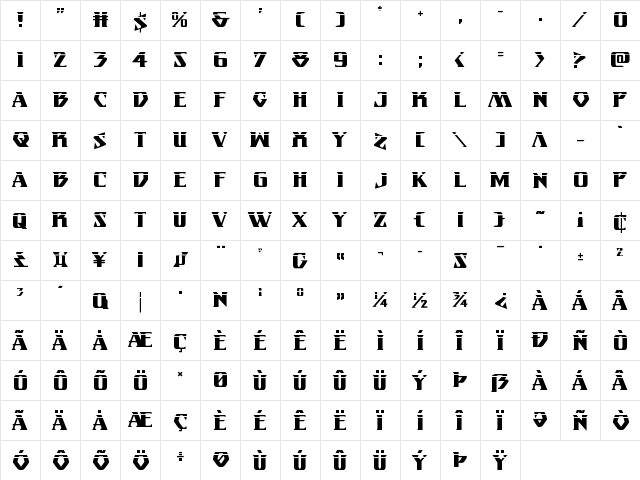
Eternal Knight Laser Regular
Design Context for Eternal Knight Laser Typeface
Eternal Knight Laser is a composed and adaptable typeface that performs quietly and consistently across a wide range of design contexts.